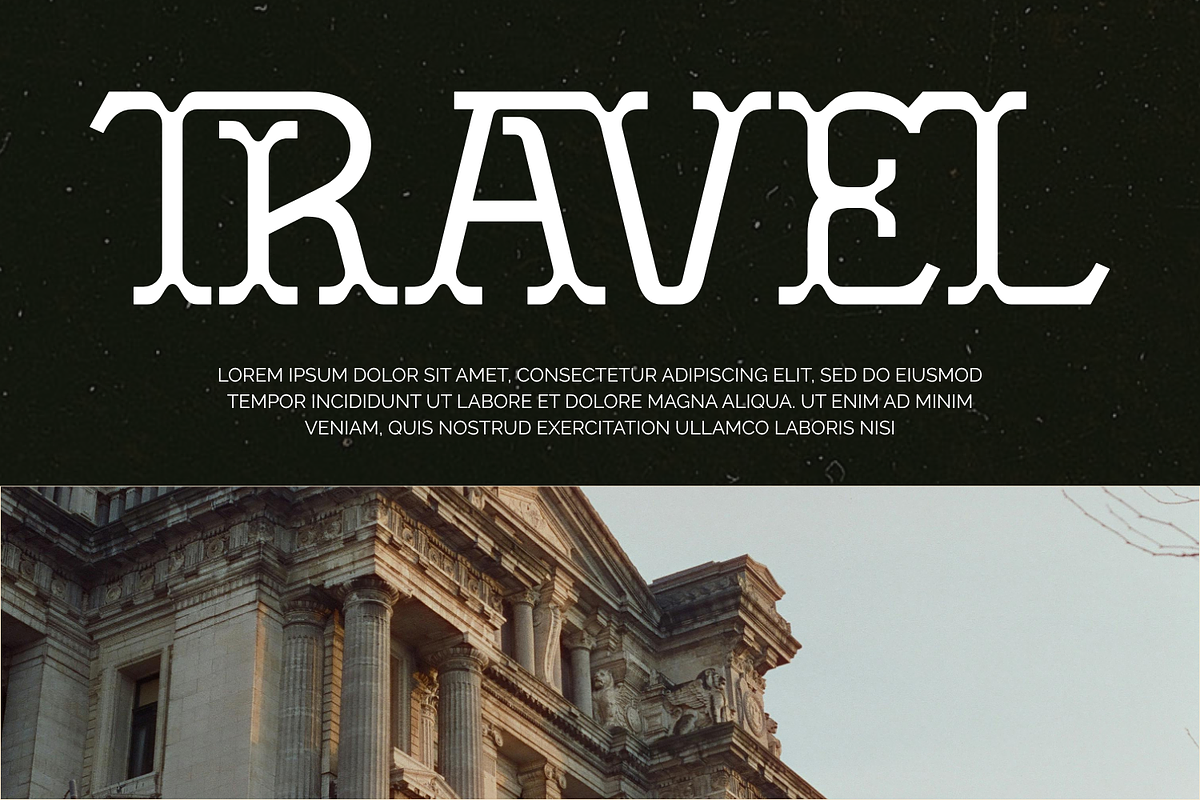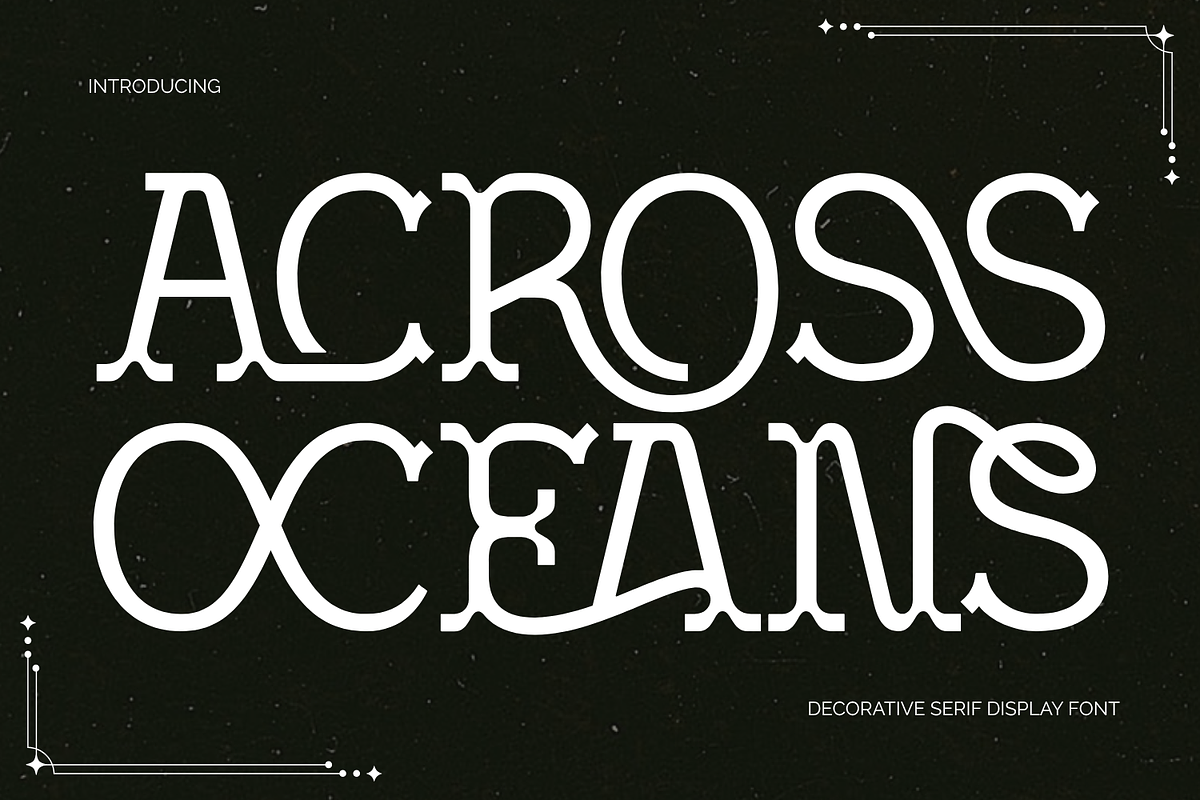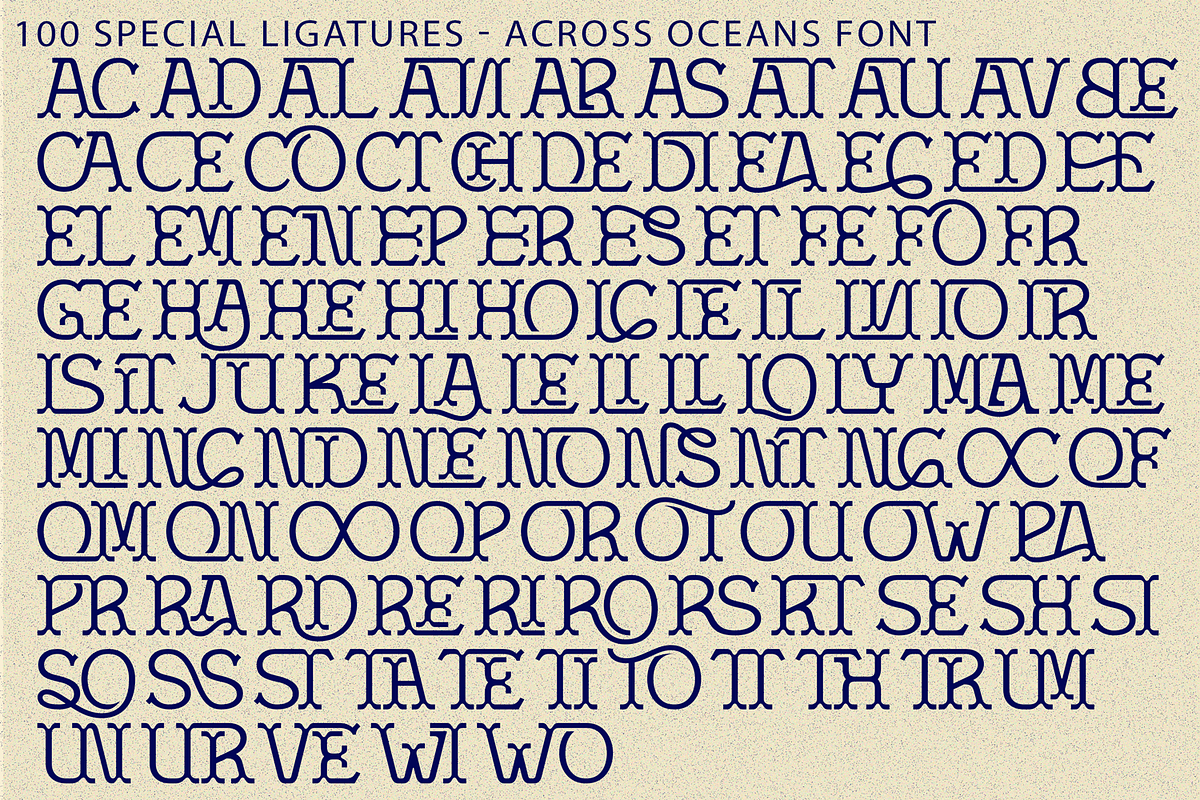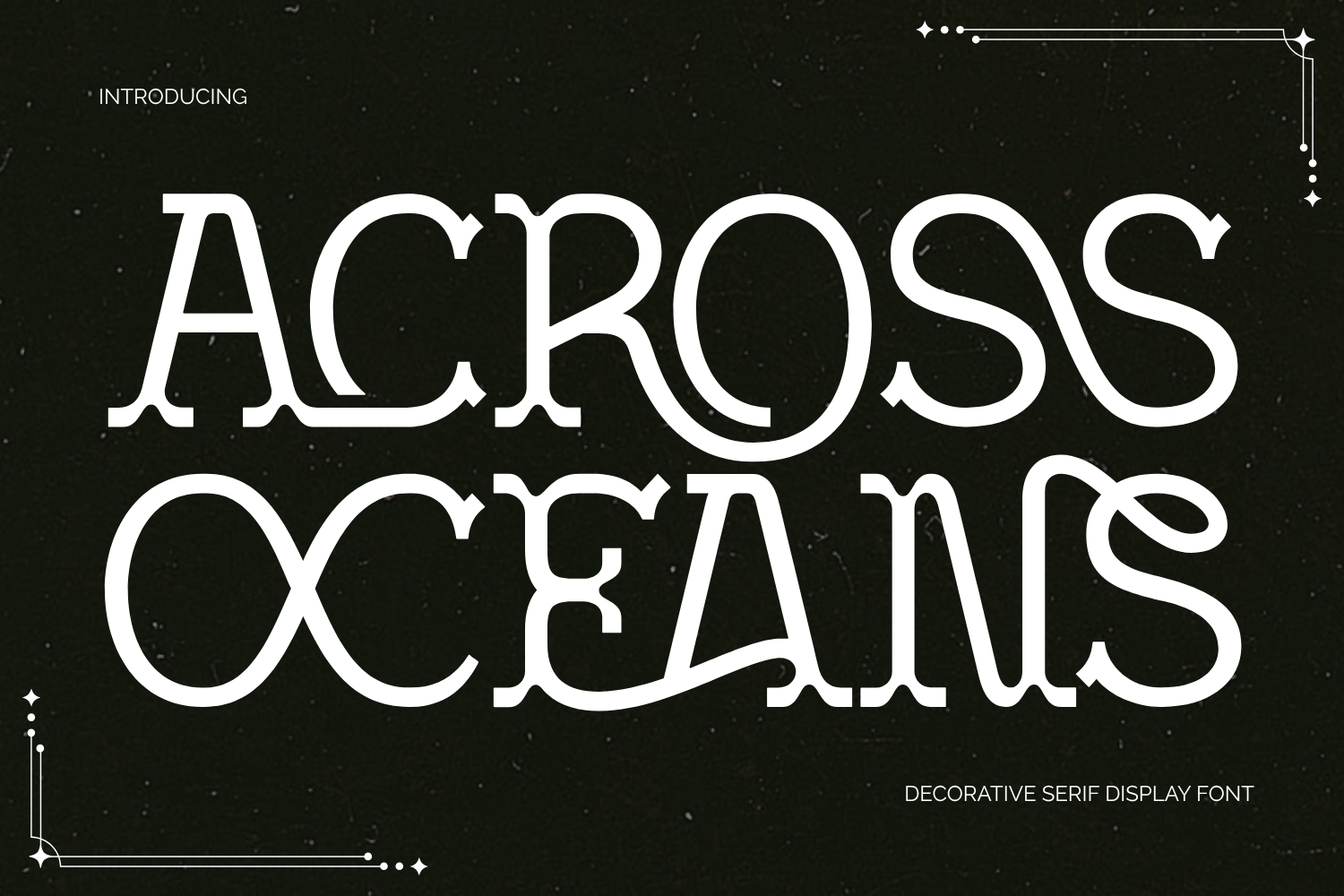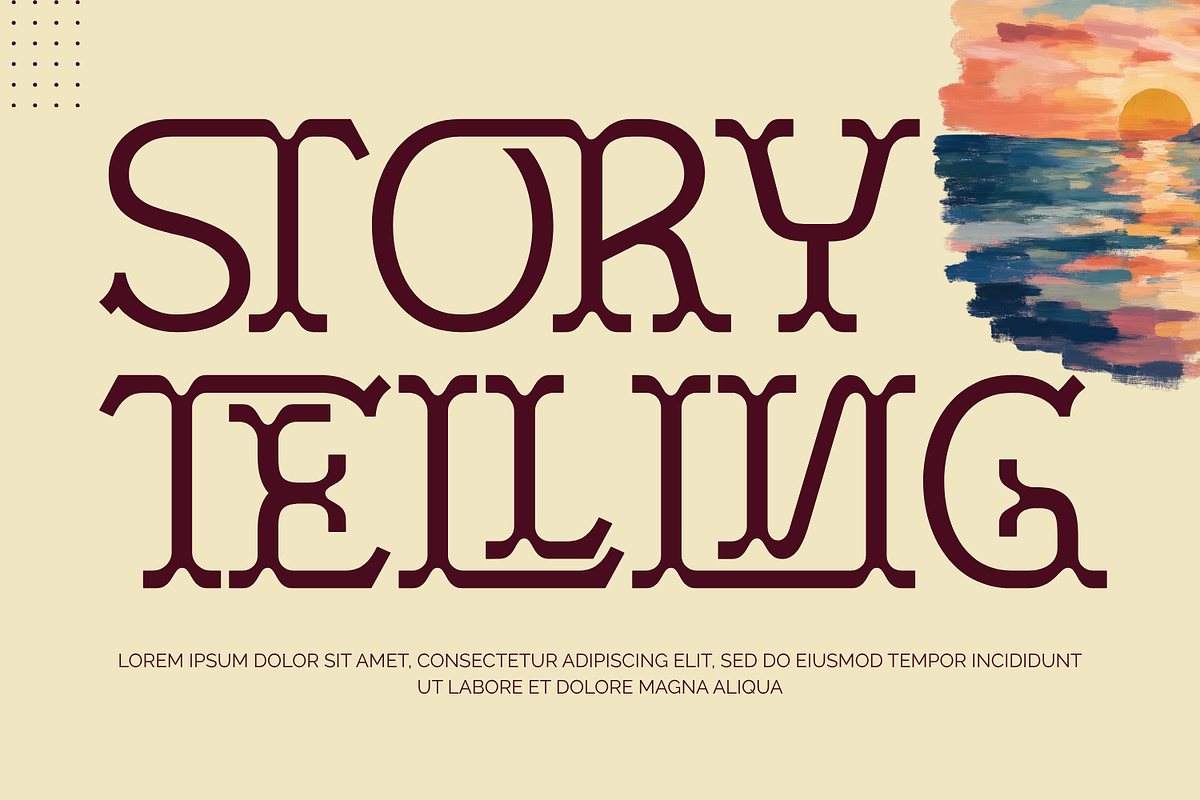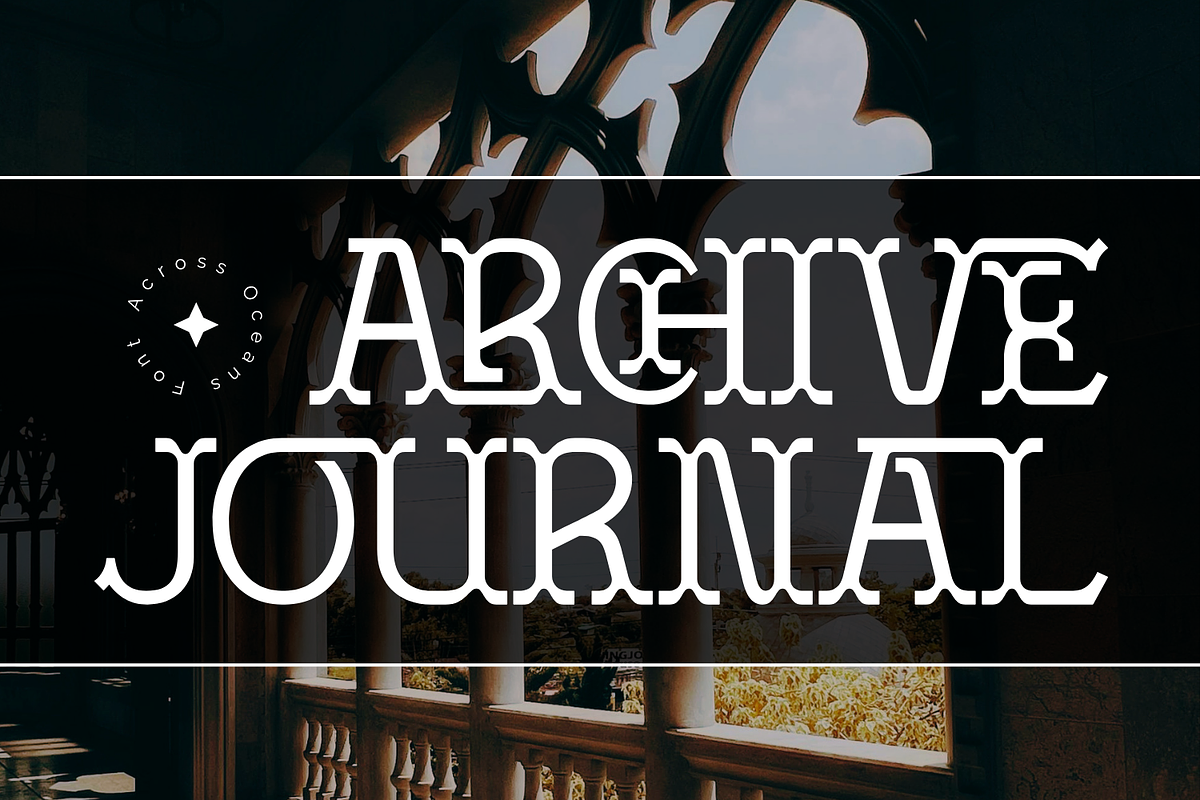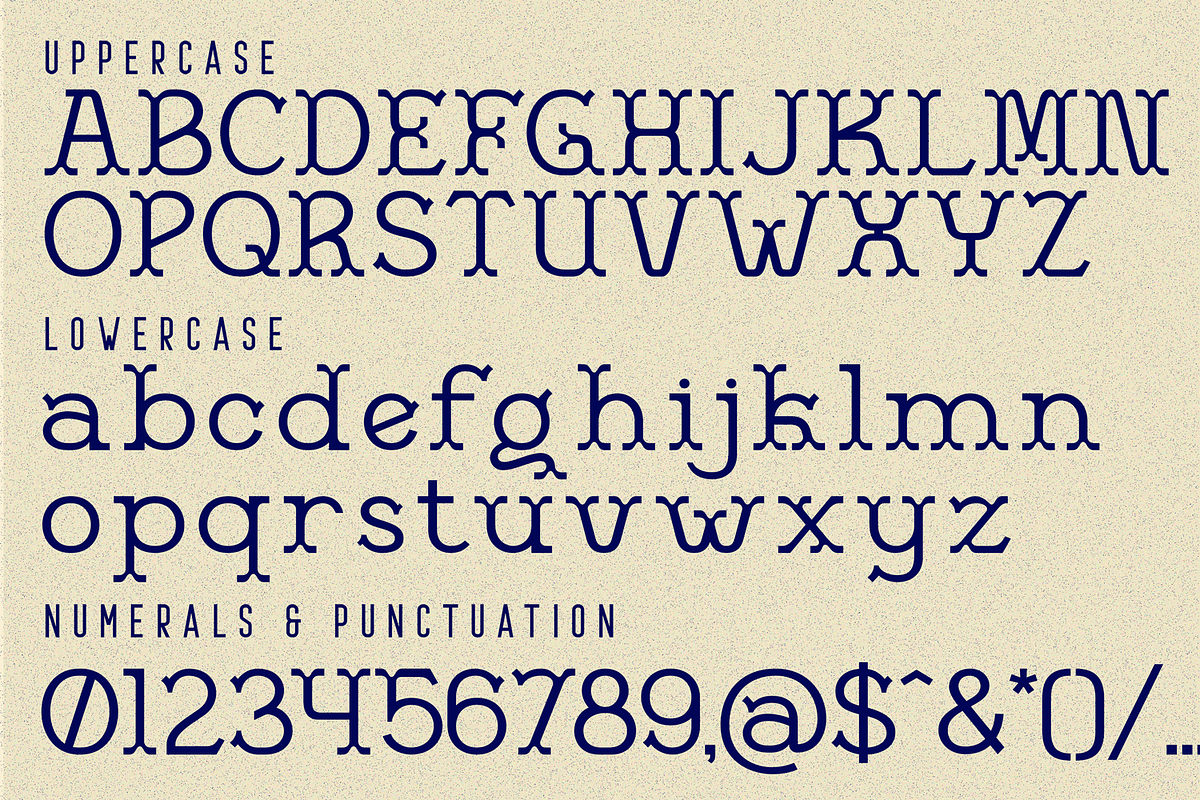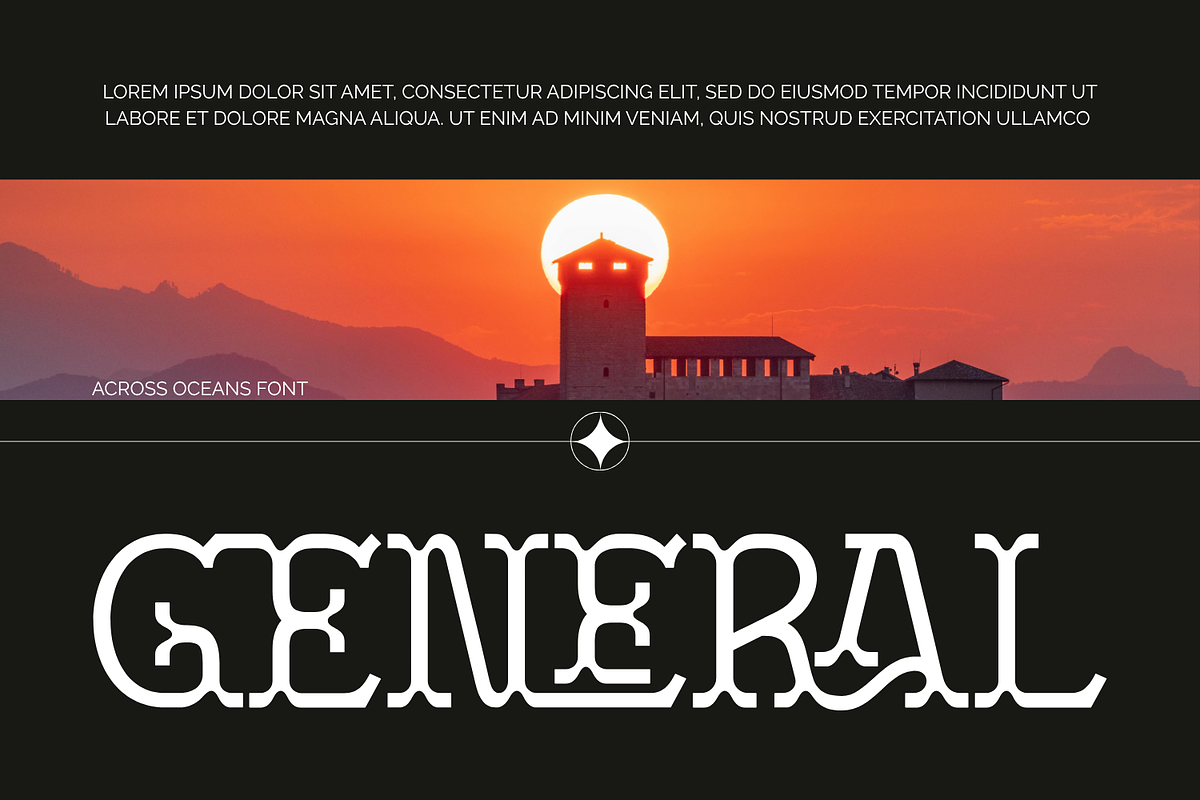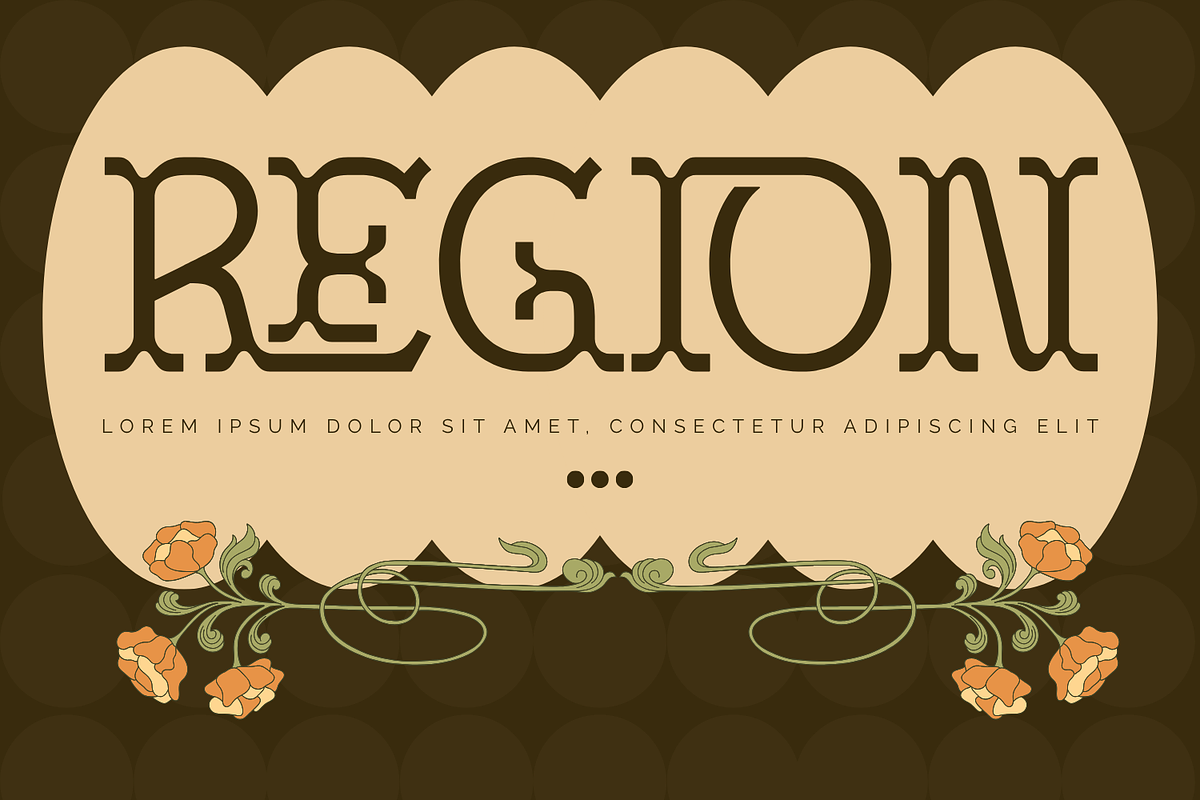
ACROSS OCEANS - DISPLAY SERIF FONT
ACROSS OCEANS - DISPLAY SERIF FONT – Vintage Nautical & Ornamental Display Serif, a spellbinding vintage display serif font inspired by the fluid grace of ocean waves, maritime romance, and classic Art Nouveau typography. Built with clean monoline proportions and embellished with dramatic interlocking ligatures and sweeping swashes, this typeface effortlessly elevates standard headlines into custom-crafted typographic artwork.
Featuring seamlessly looping character connections and sharp, elegant serifs, ACROSS OCEANS captures an aura of mystery, nautical adventure, and timeless luxury. It is ideal for designers working on boutique logos, luxury beverage packaging, fantasy novel covers, wedding stationery, travel branding, and vintage-inspired editorial layouts.
🔤Features:
Uppercase & Lowercase Letters
Around 100 Special Ligatures & Alternates
Accented Characters for multilingual support
🔤About 100 ligatures combined with Stylistic Alternates Font:
AC AD AL AN AR AS AT AU AV BE CA CE CH CO CT DE DI EA EC ED EE EL EM EN EP ER ES ET FE FO FR GE HA HE HI HO IE IC IL IN IO IR IS IT JU KE LA LE LI LL LO LY MA ME MI NC ND NE NG NO NT NS OC OF OM ON OO OP OR OT OU OW PA PR RA RD RE RI RO RS RT SE SH SI SO SS ST TA TE TH TI TO TR TT UM UN UR VE WI WO